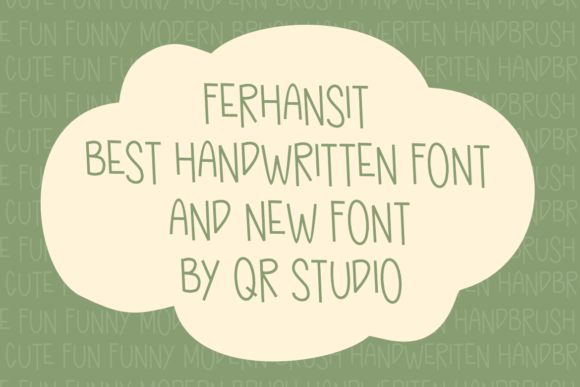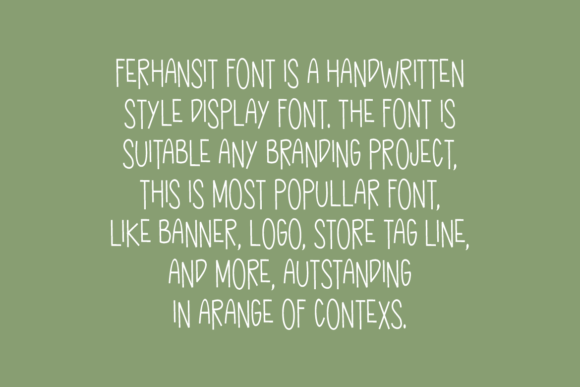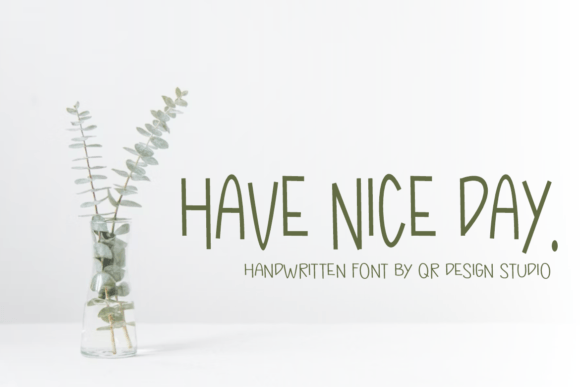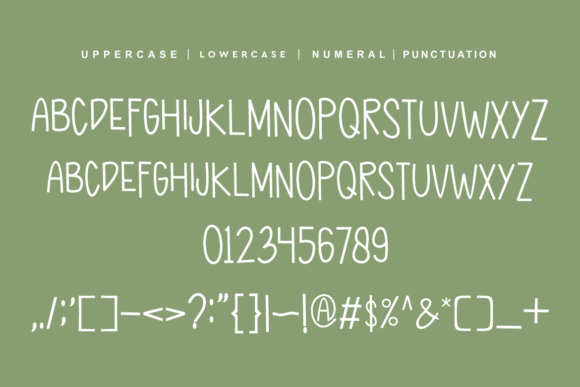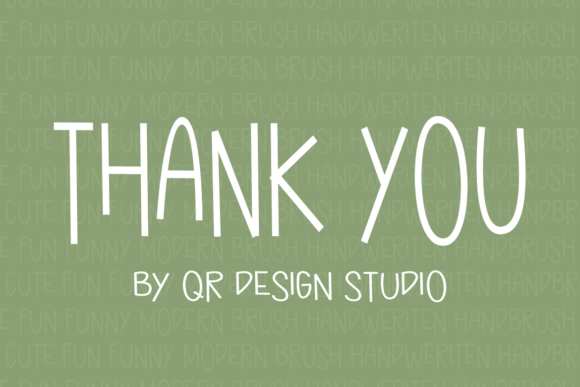
Ferhansit Font: The Sweet and Friendly Handwritten Font for Your Creative Projects
Are you a designer, crafter, or DIY enthusiast looking for a font that can add a personal touch to your projects? Look no further than Ferhansit, a sweet and friendly handwritten font that’s perfect for a wide range of designs. With its natural and unique style, Ferhansit is incredibly versatile and can be used in various creative projects, from digital designs to handmade crafts.
The Charm of Ferhansit
Ferhansit is a beautifully crafted handwritten font that’s designed to bring a touch of warmth and personality to your designs. Its sweet and friendly style makes it perfect for projects that require a personal and approachable feel, such as:
- Digital invitations and greeting cards
- Handmade crafts and DIY projects
- Branding and packaging designs
Whether you’re creating digital designs or handmade crafts, Ferhansit is the perfect font to add a touch of whimsy and charm to your projects.
What Makes Ferhansit Special?
Ferhansit’s natural and unique style sets it apart from other fonts. Its handwritten feel makes it look like it was written with love and care, adding a personal touch to your designs. The font’s versatility is also a major advantage, allowing you to use it in a wide range of projects and designs.
Here are some key features that make Ferhansit a standout font:
- Unique and handwritten style
- Sweet and friendly feel
- Natural and effortless look
- Versatile and adaptable to various designs
- Perfect for digital and print designs
How to Use Ferhansit in Your Designs
Using Ferhansit in your designs is easy and straightforward. Here are some tips to get you started:
- Pair Ferhansit with other fonts to create a unique and interesting contrast
- Use Ferhansit as a headline font to add a touch of personality to your designs
- Use Ferhansit in digital designs, such as social media graphics and blog headers, to add a personal touch
- Incorporate Ferhansit into your handmade crafts, such as cards and invitations, for a unique and special touch
Why Designers and Crafters Love Ferhansit
Ferhansit has quickly become a favorite among designers and crafters, and for good reason. Here are some reasons why:
- Ferhansit is easy to read and understand, making it perfect for designs that require clear communication
- The font’s unique style adds a touch of personality to designs, making them stand out from the crowd
- Ferhansit is versatile and adaptable, making it suitable for a wide range of designs and projects
- The font’s handwritten feel adds a personal touch to designs, making them feel more approachable and friendly